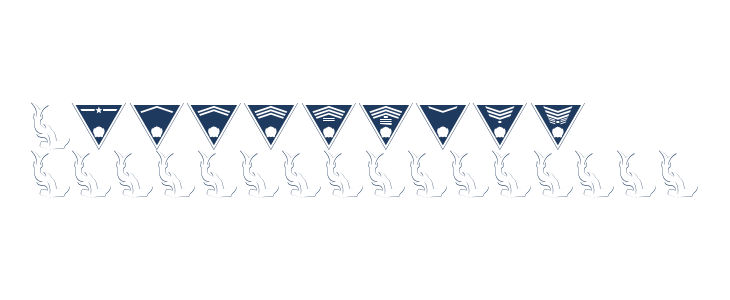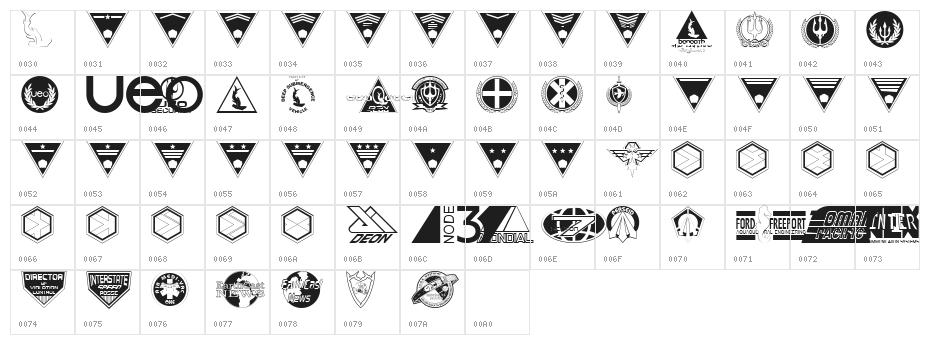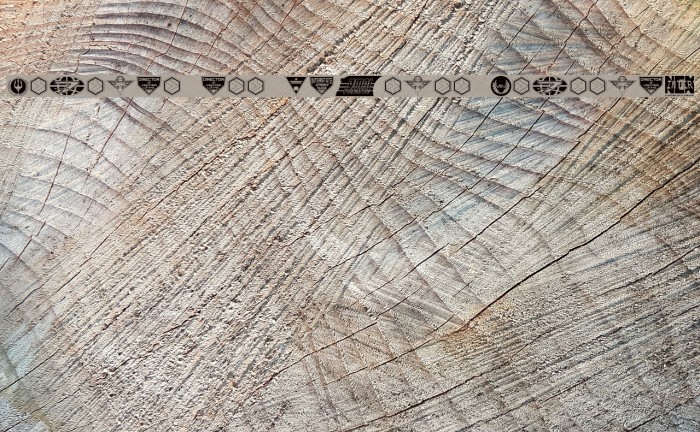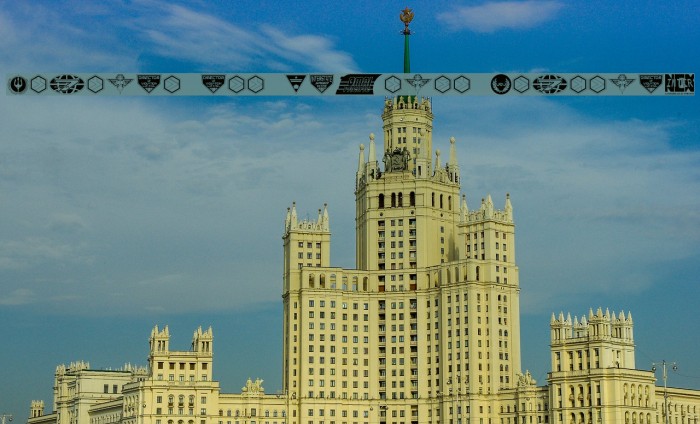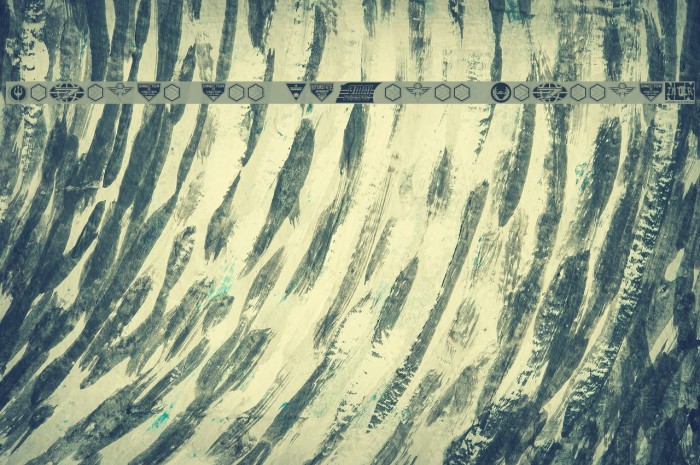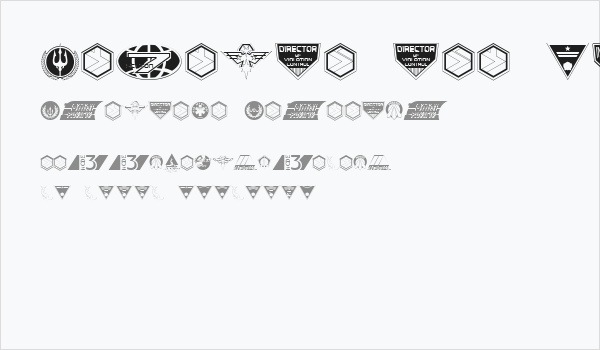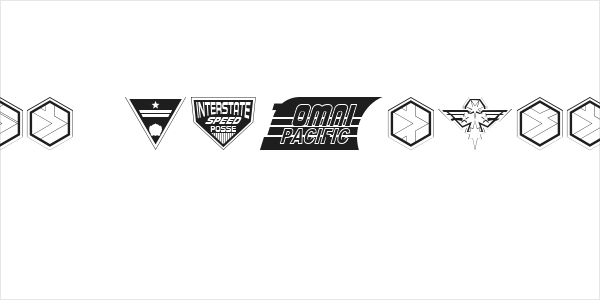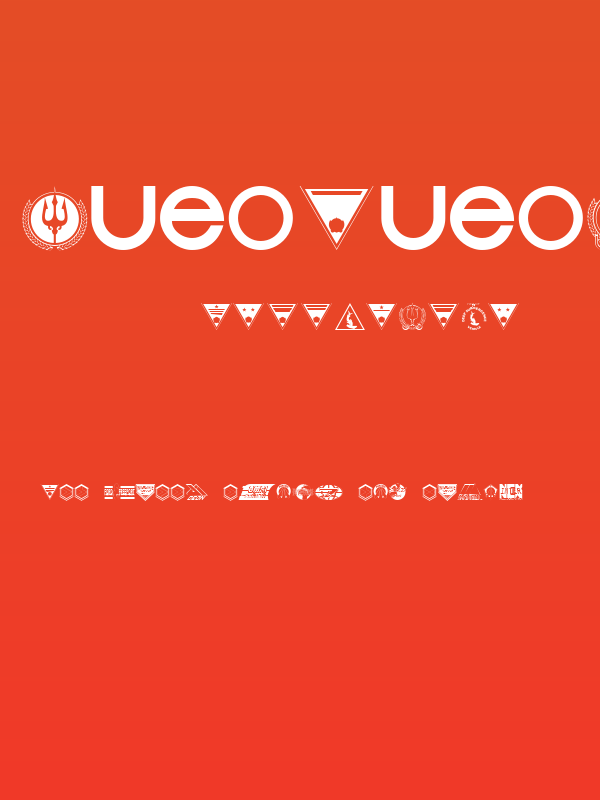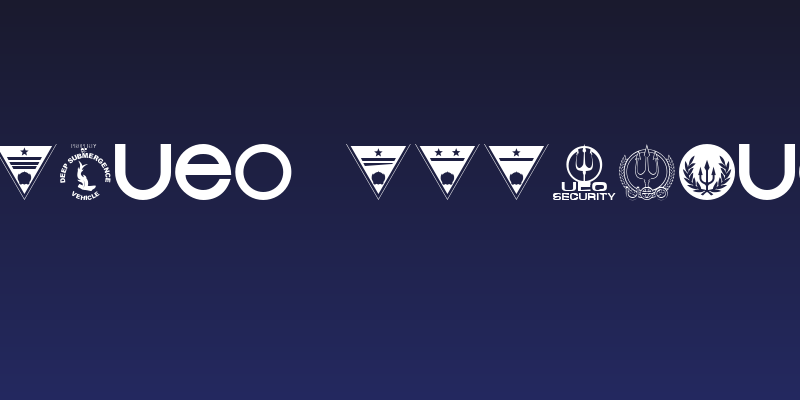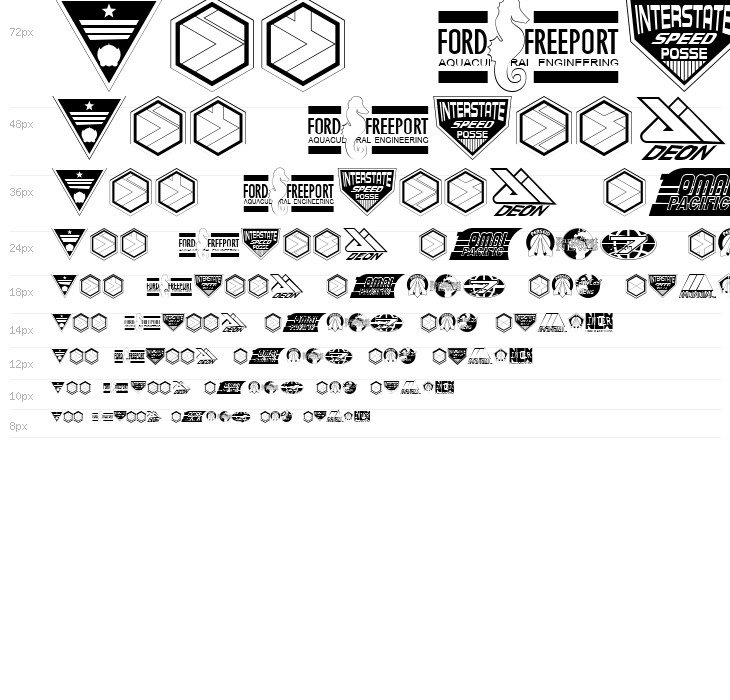
Beneath the Surface Dingbats Font
Beneath the Surface Dingbats Description
A collection of monochrome dingbat symbols and logos, featuring a mix of geometric badges, stylized animals, insignias, and futuristic emblems. The glyphs are highly detailed, with a focus on sharp lines, symmetrical shapes, and iconographic elements. The style is reminiscent of science fiction and organizational insignias, with some glyphs incorporating text and others purely pictorial.
Overall StyleFuturistic, Organizational, Decorative
Use CaseLogos, Icons, Themed Graphics, Game Design
Proposed ProjectsIdeal for science fiction projects, game UI elements, world-building documents, themed posters, and creative branding for futuristic or organizational concepts.